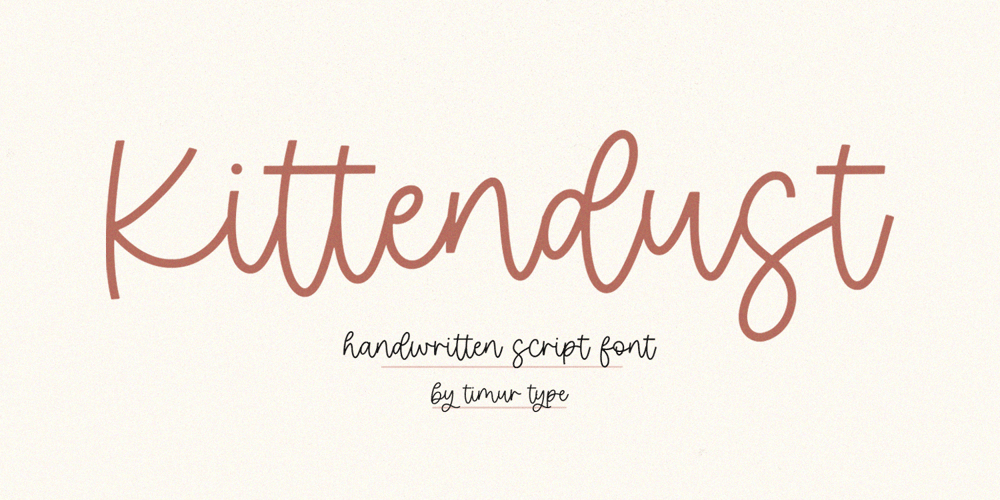
Kittendust Font Family was designed by Wara Sigit Tri Pamungkas and published by Timurtype. Kittendust contains 1 styles and family package options. Introducing by Timur typeProudly Present, Kittendust A Handwritten Script FontKittendust is perfect for product packaging, branding project, megazine, social media, wedding, or just used to express words above the background.Kittendust also multilingual support.Embelish your designs with our original fonts.Enjoy the font,Thank you!